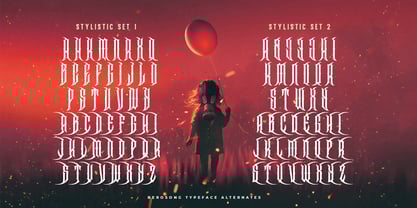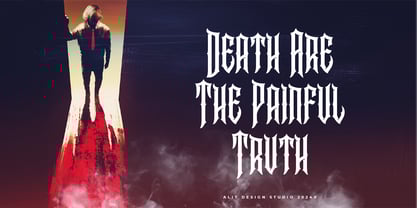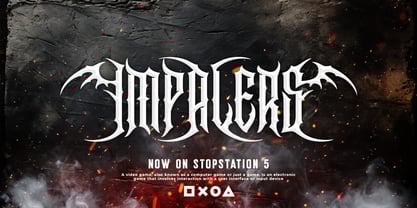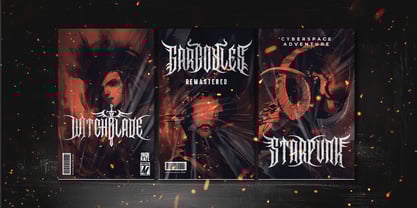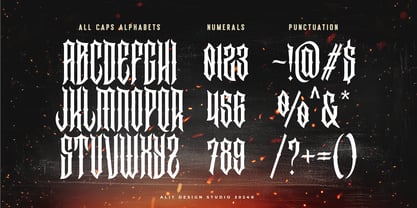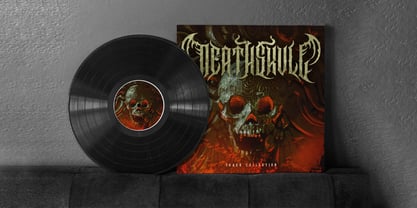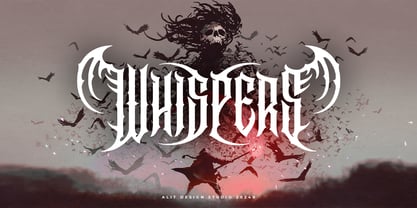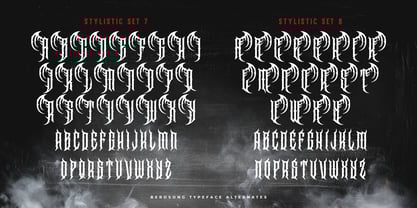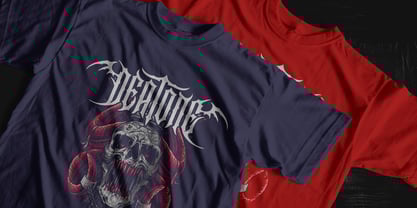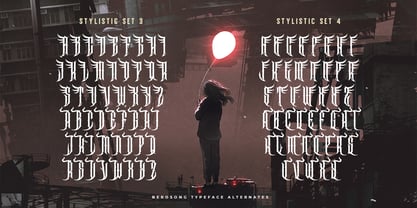
Berosong
by Alit Design
The Berosong Font Family was designed by Alit Suarnegara and published by Alit Design. Berosong contains 1 styles. More about this family
Description of "Berosong Typeface"
Berosong Typeface is a bold and dynamic font designed with a modern metal aesthetic, perfect for evoking a sense of intensity and power. This typeface is ideal for projects that demand a striking and edgy appearance, including game titles, music album covers, movie posters, and other creative designs that embrace a dark or contemporary theme.
Key Features:
1. Extensive Glyph Set:
• With 930 glyphs, Berosong offers an impressive range of characters to accommodate intricate and varied designs.
2. Alternates for Design Versatility:
• Includes alternate versions of characters to provide designers with creative flexibility.
• Special alternate first and last letter pairs ensure seamless and stylistic word endings and beginnings.
3. Ligatures with Dingbats:
• Unique ligatures that incorporate dingbats, allowing for decorative and thematic enhancements.
5. Multilingual Support:
• Supports multiple languages, making it versatile for global audiences.
Applications:
• Game Titles: Amplify the immersive vibe of video games with its bold and thematic style.
• Music Album Covers: Perfect for metal, rock, or alternative albums, adding a visually striking element.
• Movie Posters: Conveys intensity and modernism for action, thriller, or sci-fi films.
Whether you're designing for the digital realm or print media, Berosong Typeface delivers a potent blend of style, versatility, and expressive power that complements any modern, metal-inspired project.